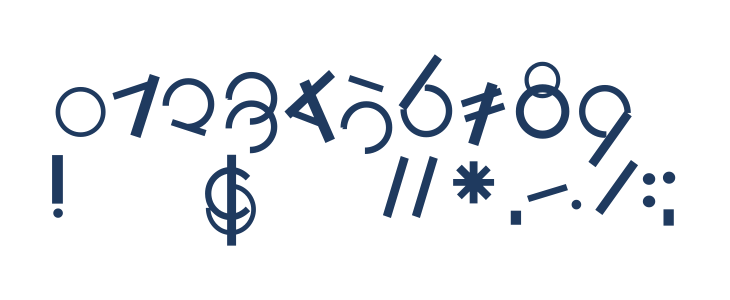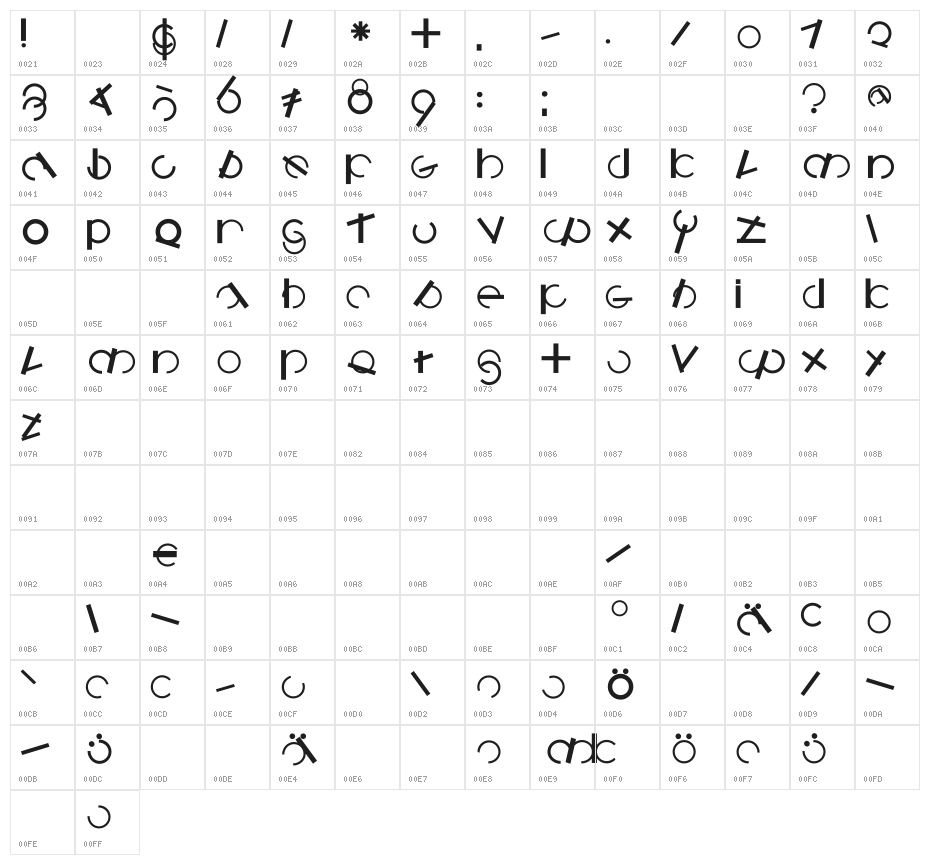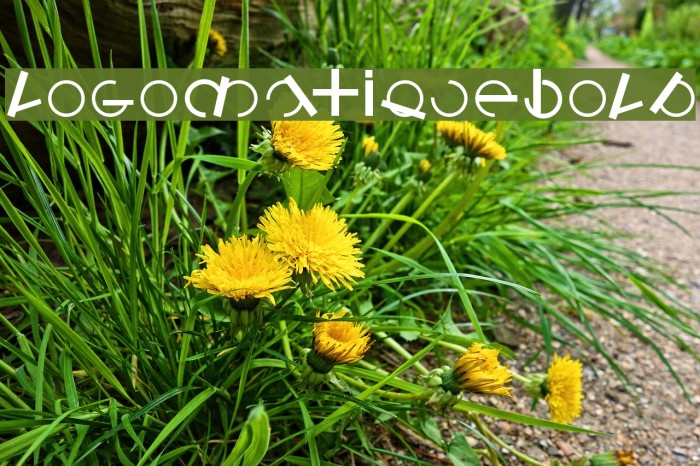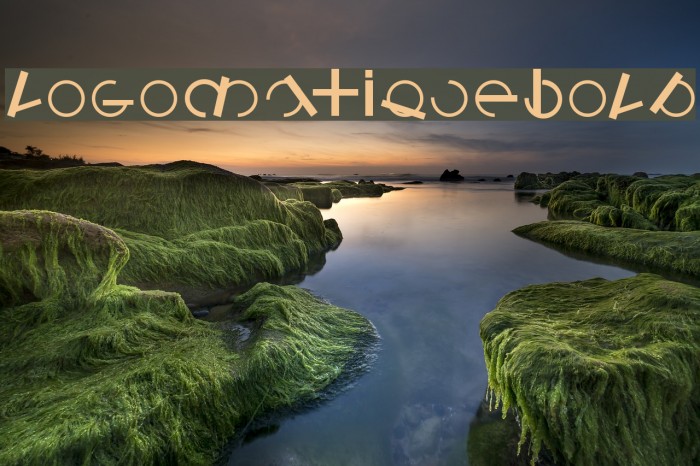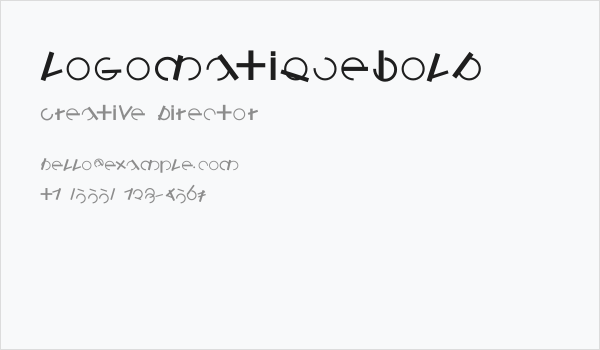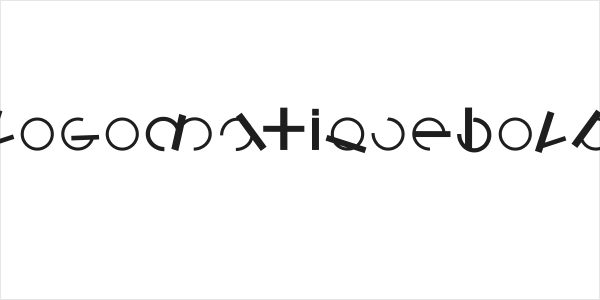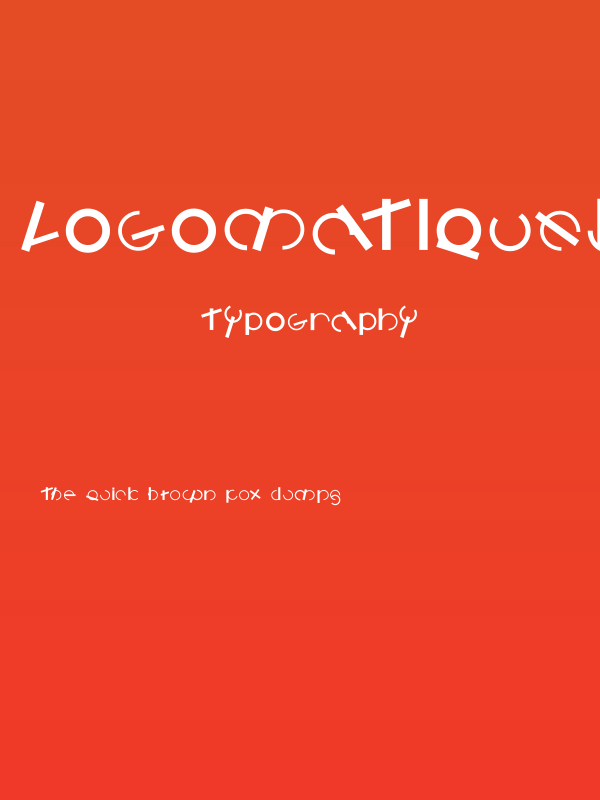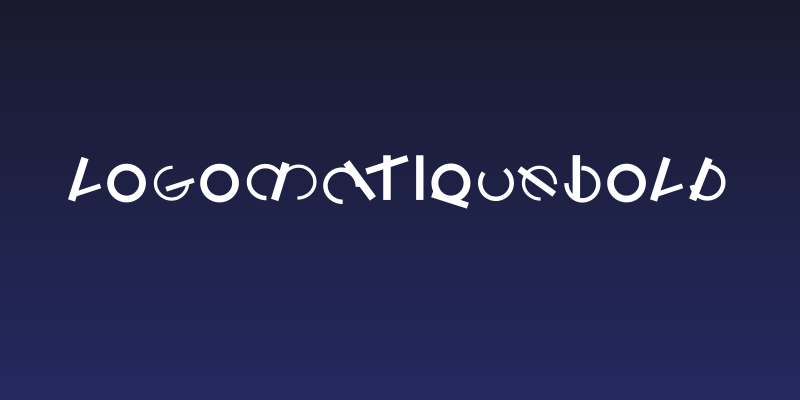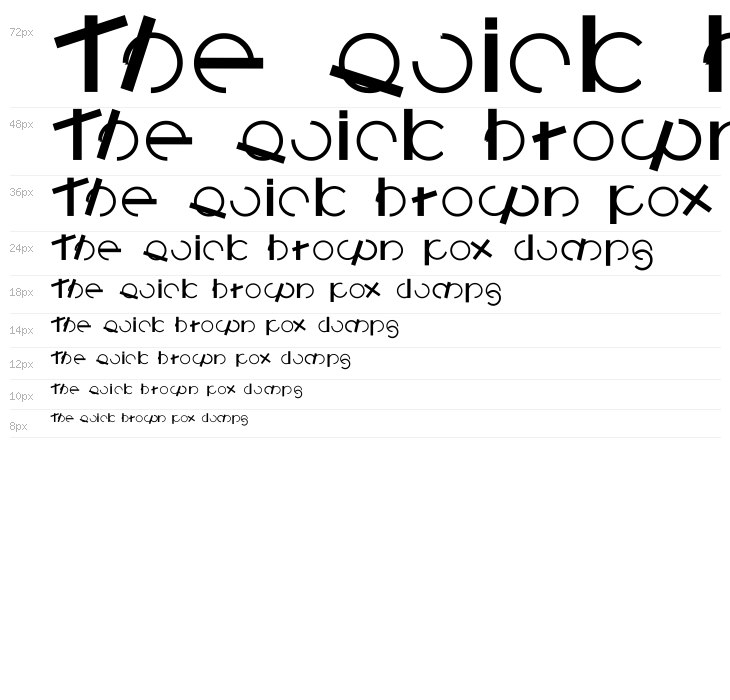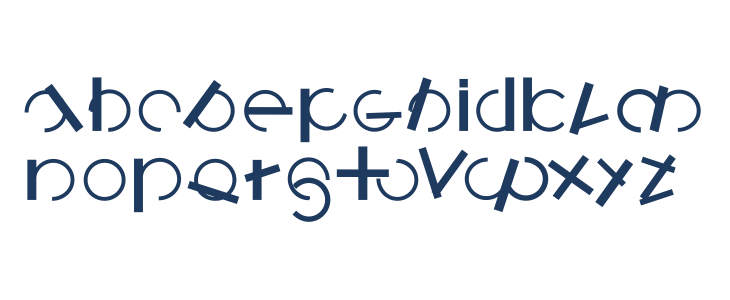
LogomatiqueBold Font
LogomatiqueBold Description
This font features a bold, geometric design with a modern and artistic flair. The characters are constructed with a mix of sharp angles and smooth curves, creating a dynamic and visually striking appearance. The uppercase and lowercase letters maintain a consistent style, with unique elements such as slanted lines and circular forms that add a sense of movement and creativity. The numerals and special characters follow the same design principles, ensuring a cohesive look across all glyphs. This font is ideal for projects that require a bold and contemporary aesthetic.
| Proposed Projects | Ideal for logos, branding, posters, and modern art projects. |